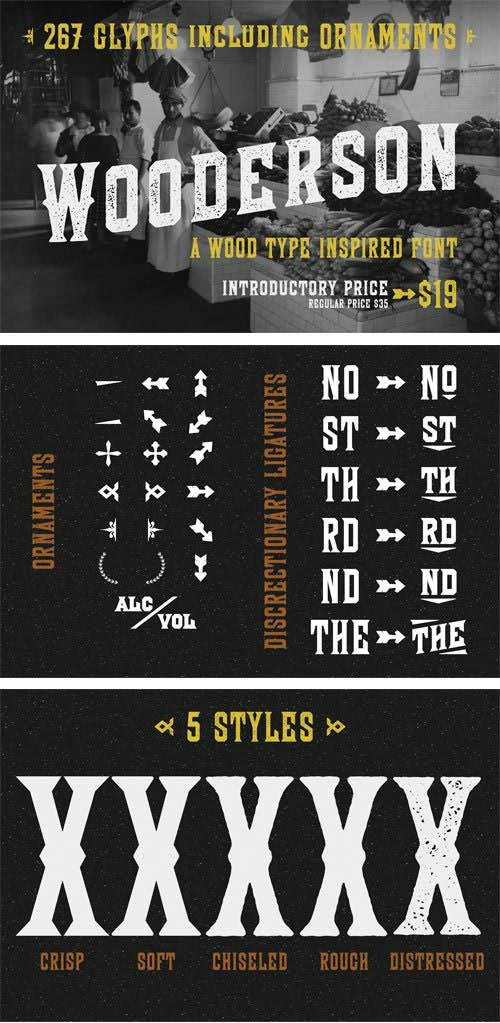
Wooderson Font
Wooderson is a typeface based on some old wood block type. 267 handcrafted glyphs obsessed over, redrawn, and updated for the new world.